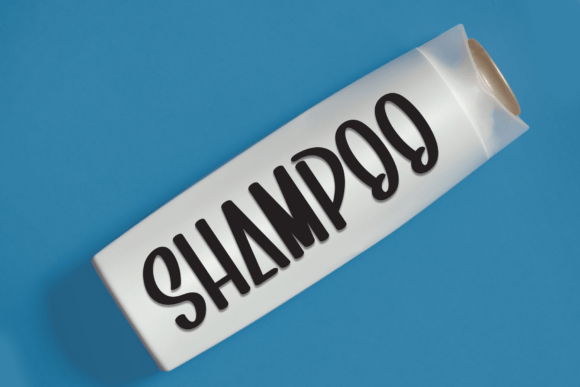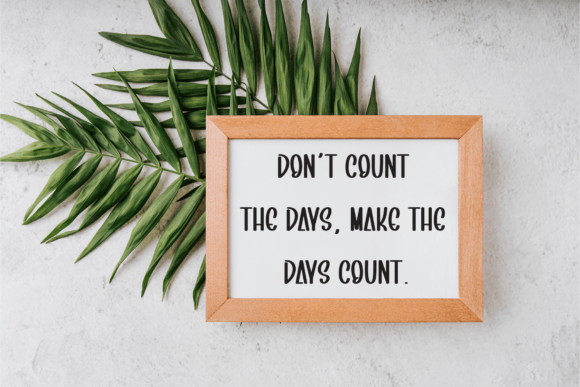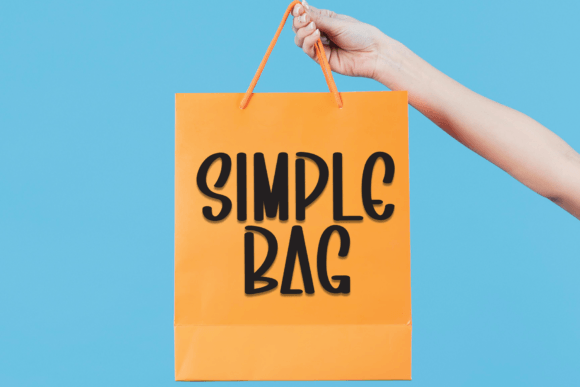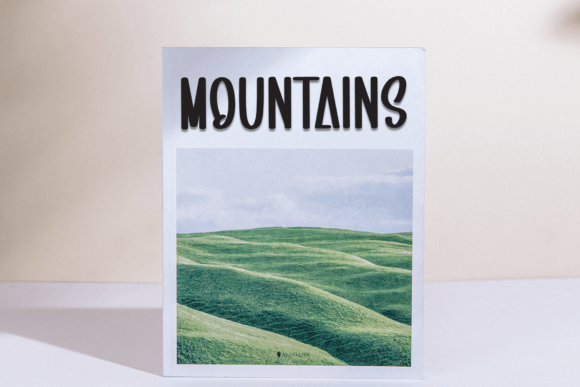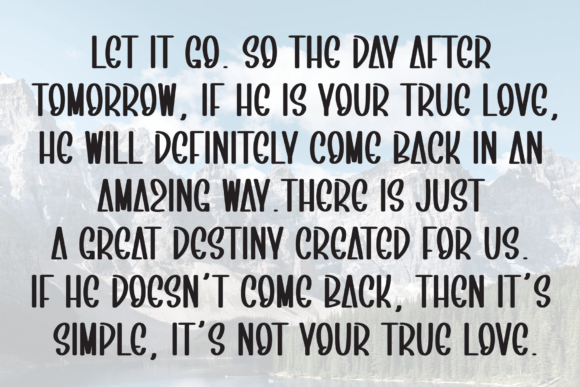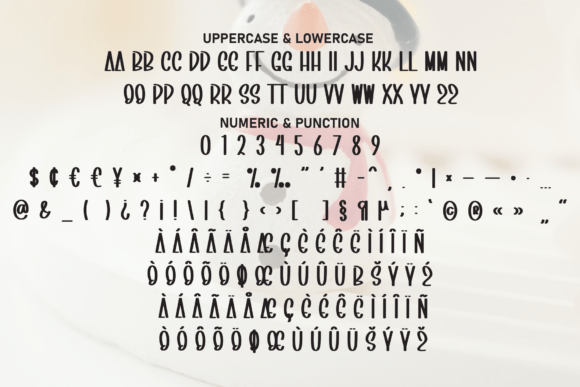
Bring a Touch of Whimsy to Your Designs
Have you ever stared at a blank sheet of paper, waiting for inspiration to strike? For designers, that moment of creative block can be frustrating, but it’s also a chance to start anew. And that’s exactly what happens when you discover the perfect font – one that speaks to your vision and elevates your design to the next level.
Enter the Chubby Snowman Font, a delightfully charming handwritten display font that captures the essence of simplicity and joy. This friendly font is the ideal companion for wedding invitations, cards, and any design that needs a dash of whimsical charm. With its playful appeal, it’s sure to bring a smile to the faces of your audience, making it a valuable addition to any designer’s toolkit.
Chubby Snowman Font Key Features
- Unique Characteristics: The Chubby Snowman Font features a playful, rounded design with a winter theme, perfect for festive and holiday-related projects.
- Font Style: The font is available in regular and bold styles, offering versatility for different design applications.
- Language Support: The font supports a wide range of languages, including Latin, Cyrillic, and Greek alphabets.
Chubby Snowman Font Review
I recently had the chance to work with the Chubby Snowman Font, and I must say it’s a unique addition to any design project. ✨ The playful and rounded edges of the letters immediately caught my attention. It’s a great choice for a children’s book, holiday-themed campaign, or even a whimsical logo design.
Here are some of the things that work well with this font:
- ✨ High contrast: The bold and bright design makes the font stand out, especially on a white background.
- ✨ Versatile: Chubby Snowman can be used for headings, body text, and even titles, making it a great all-around choice.
- ✨ Fun and quirky: The font’s rounded edges and imperfect shape add a touch of personality to any design project.
- ⚠️ Limited legibility: At smaller font sizes, the letters can become difficult to read, especially for those with vision impairments.
- ⚠️ Limited font weights: While the bold version is great, the font only comes in a few weights, which can limit its use in certain design contexts.
Overall, I think the Chubby Snowman Font is a great addition to any designer’s toolkit, but it’s essential to use it judiciously and consider its limitations when working on a project.
Tips for Getting the Most Out of Chubby Snowman Font
Use the Chubby Snowman Font for winter-themed designs, such as holiday cards, invitations, and social media graphics.
Combine the font with snowflake graphics or other winter elements to create a cohesive design.
Experiment with different font sizes and colors to add visual interest to your design.
Winter-themed designs, such as holiday cards and invitations.
Social media graphics, such as Facebook and Instagram posts.
Stationery and greeting cards.